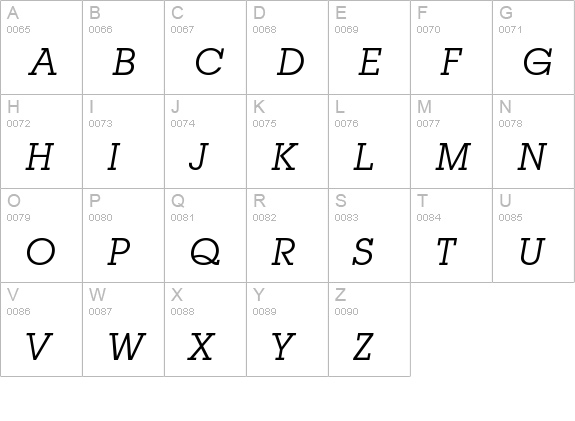
LubalinGraphEF-BookOblique font is a sophisticated and elegant typeface that exudes a sense of modernity and professionalism. Its sleek oblique design adds a touch of flair and creativity to any project, making it perfect for both formal documents and creative designs. The smooth curves and balanced letterforms of this font make it highly readable and versatile for various applications. One of the best features of LubalinGraphEF-BookOblique font is that it is available for free download at FontsMarket.com. This means that you can easily access this high-quality font without any cost, making it a valuable resource for designers, students, and anyone looking to enhance their projects with a touch of style and sophistication. Don't miss out on the opportunity to add LubalinGraphEF-BookOblique font to your collection and elevate your design work to the next level.